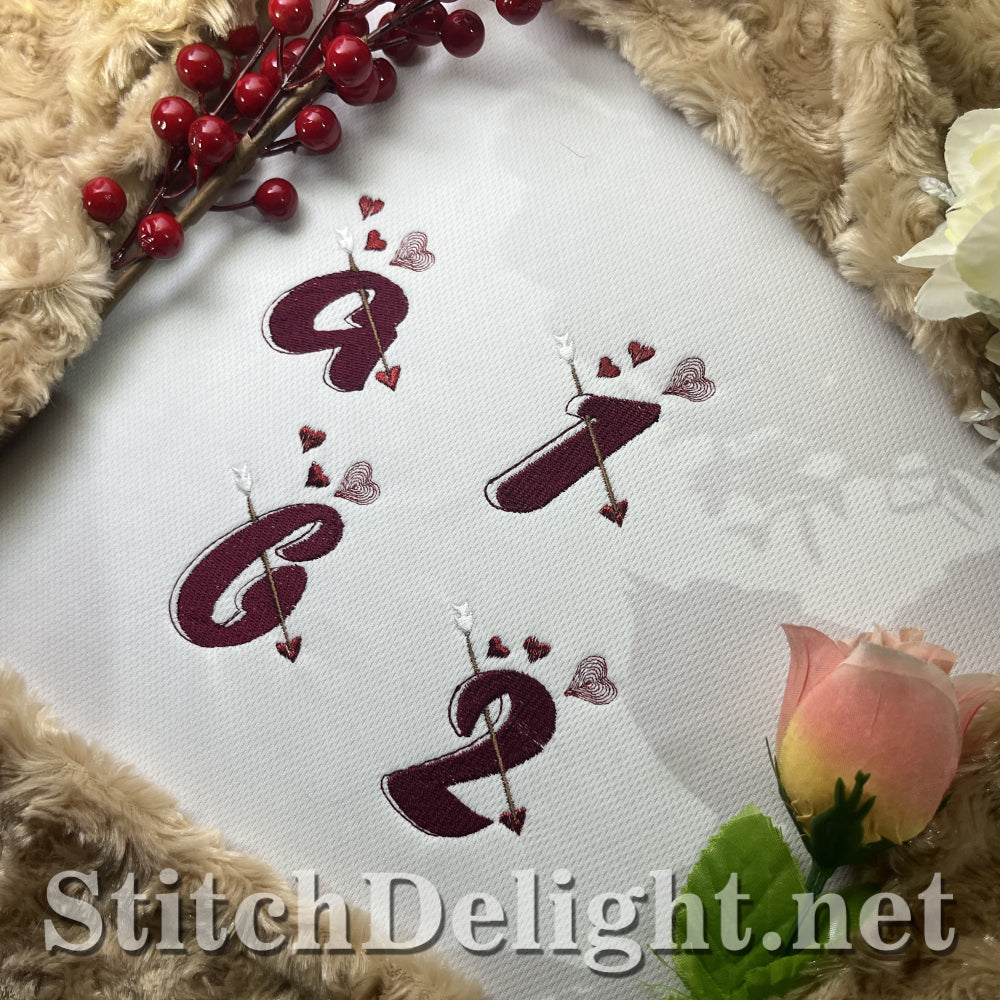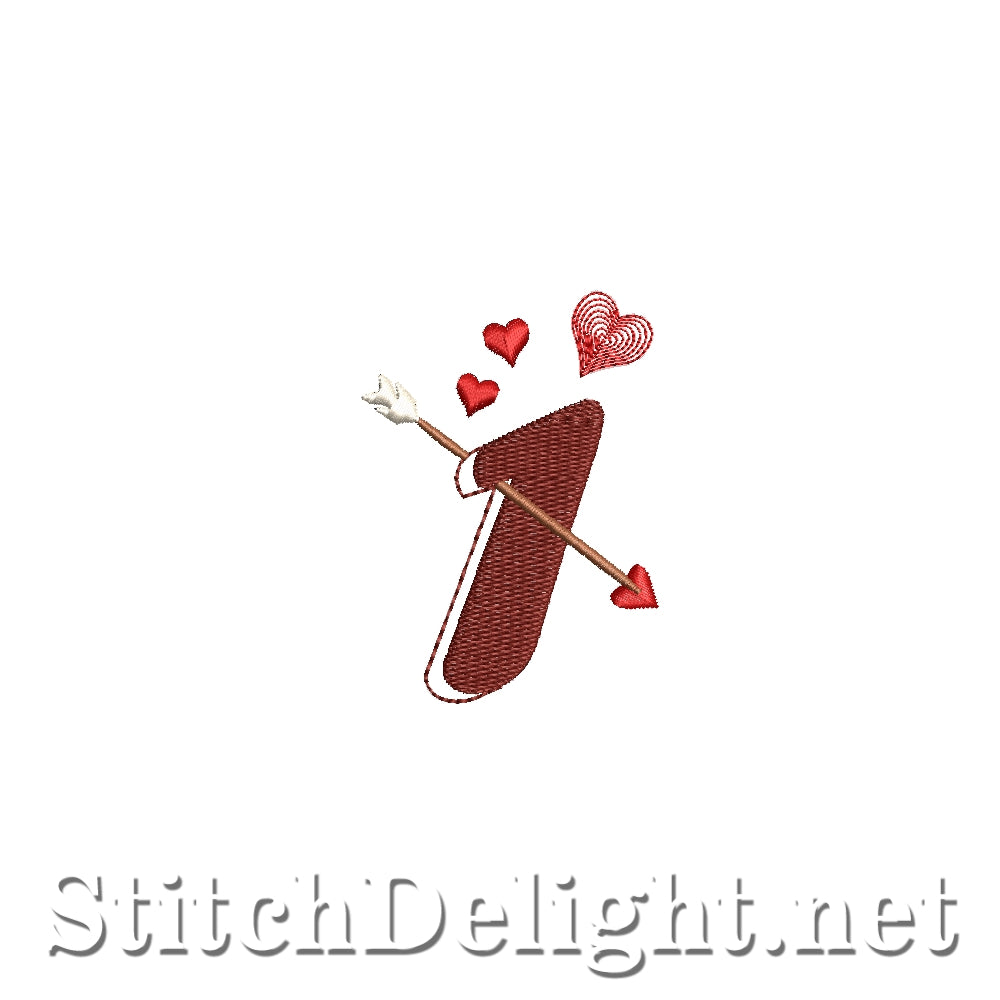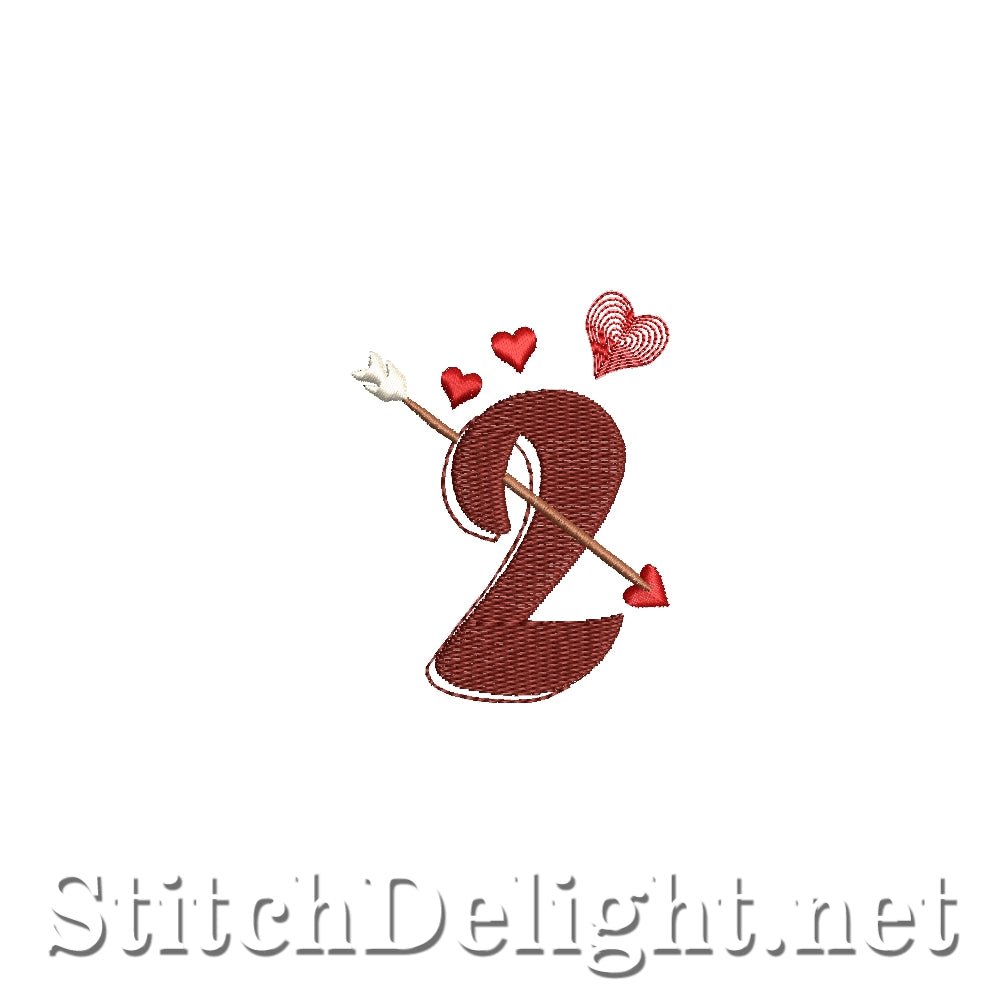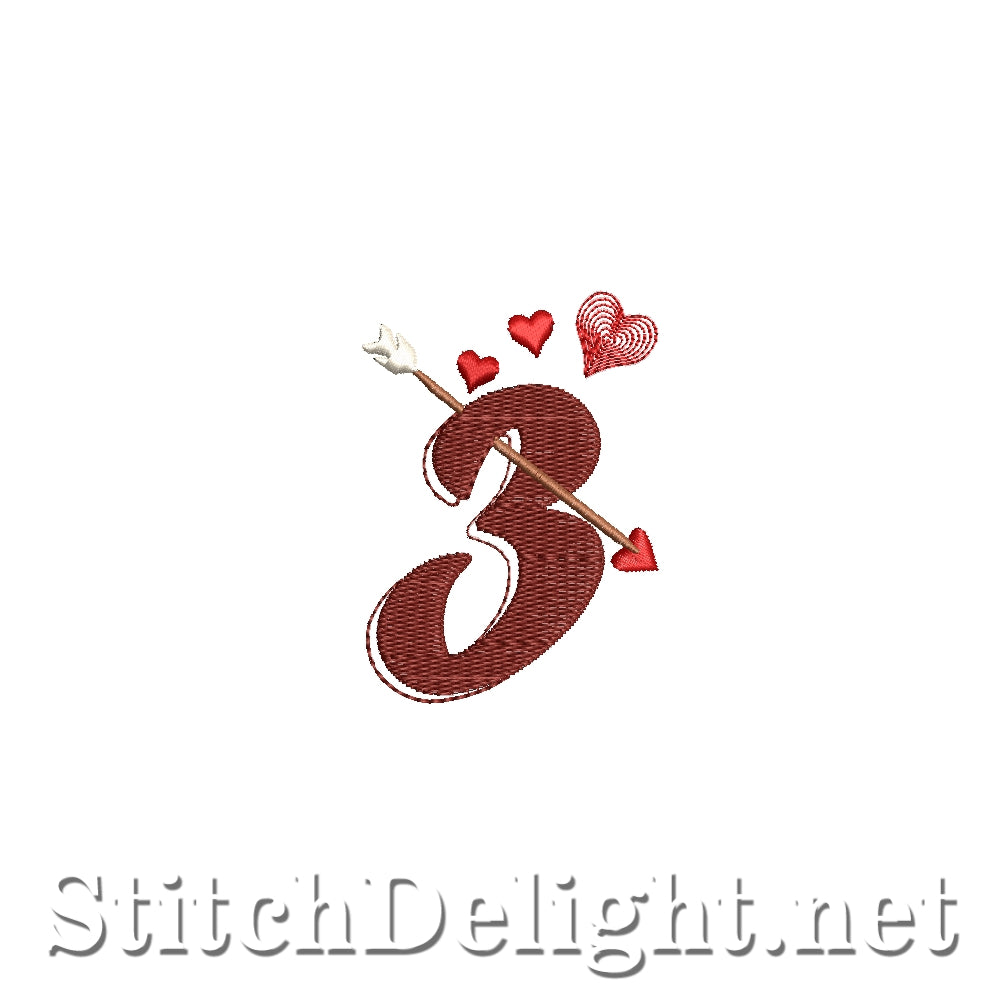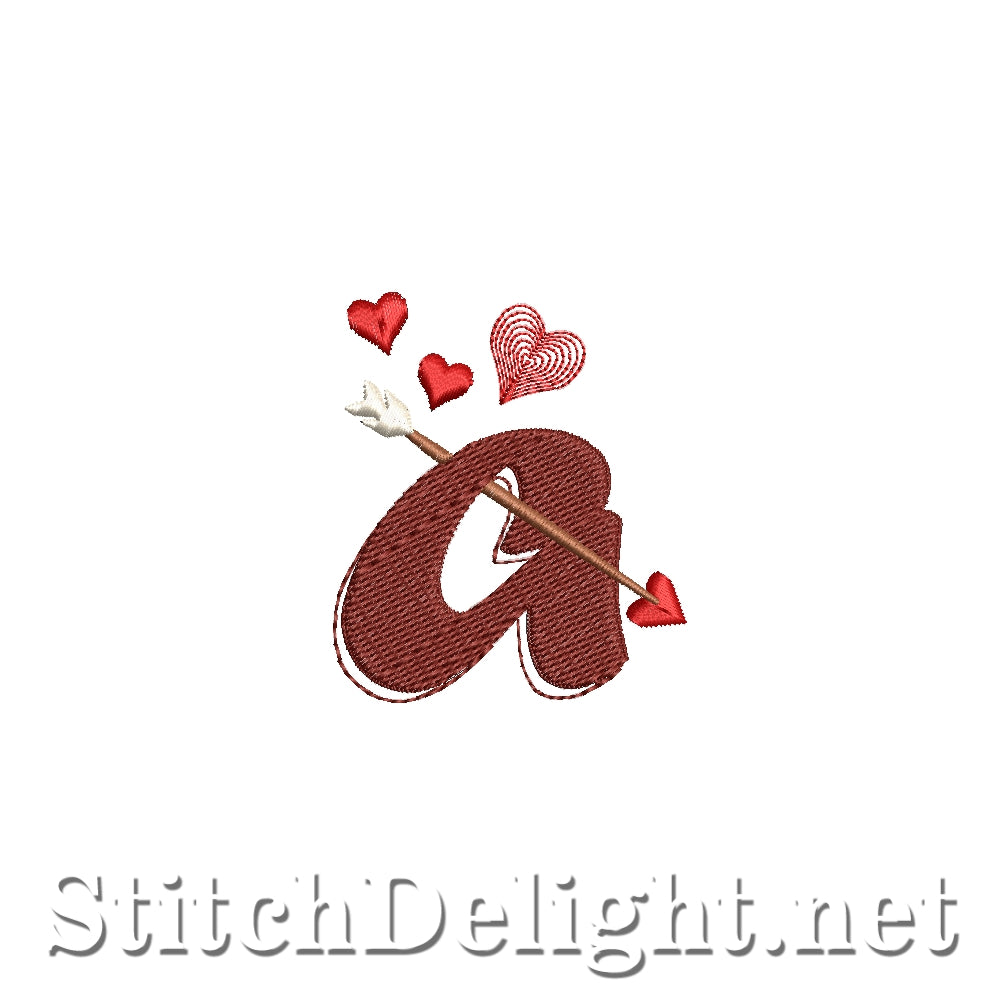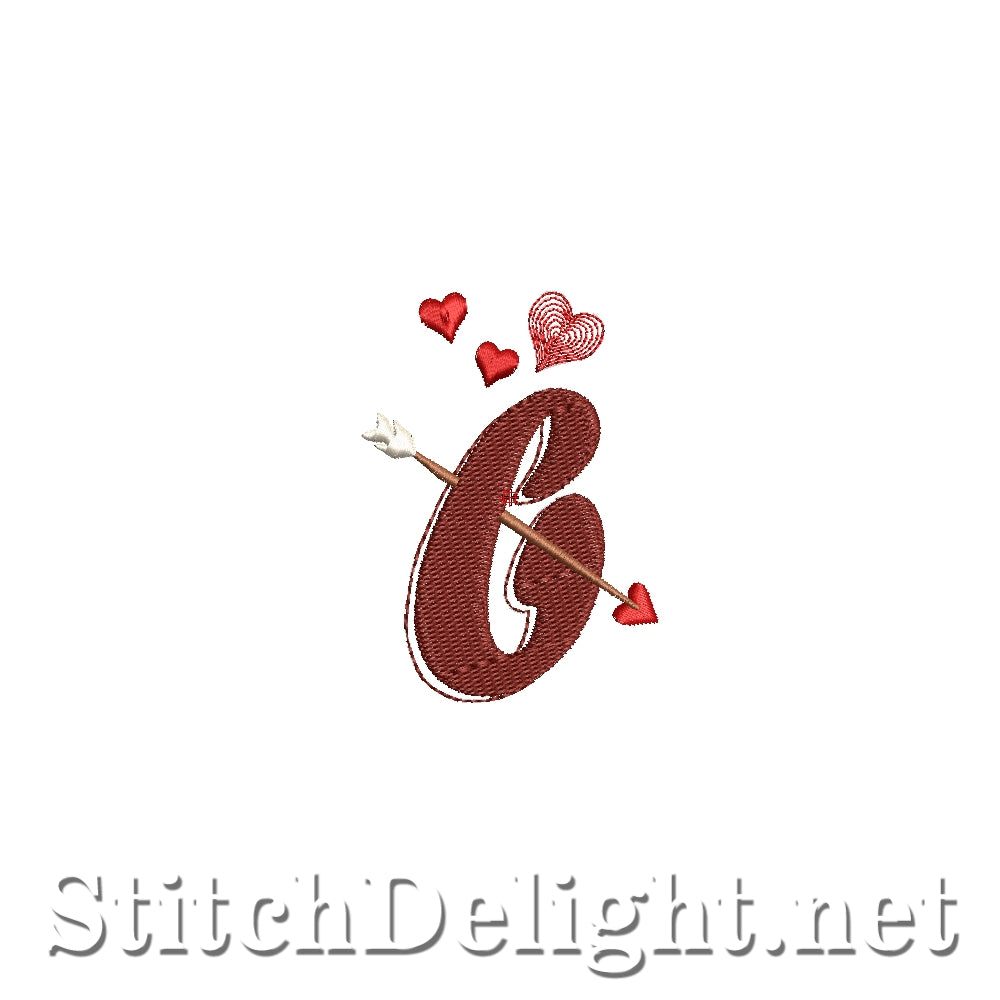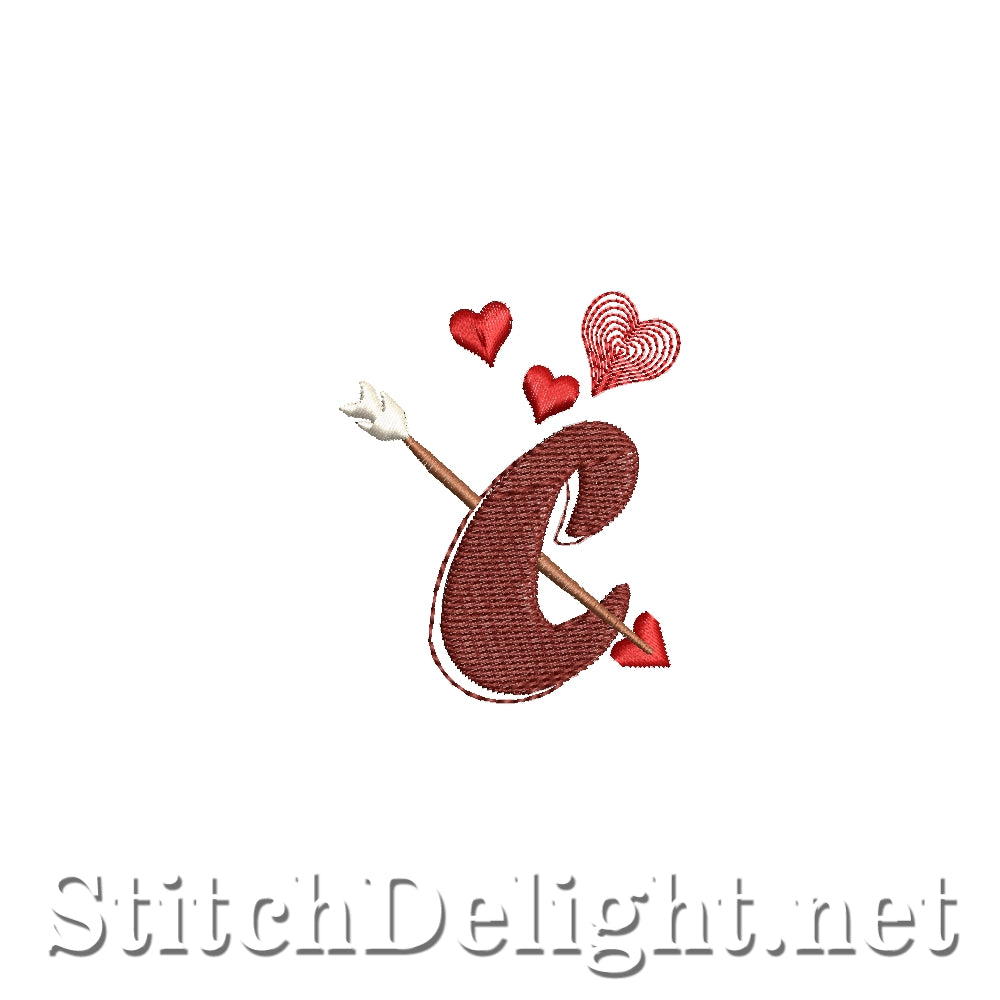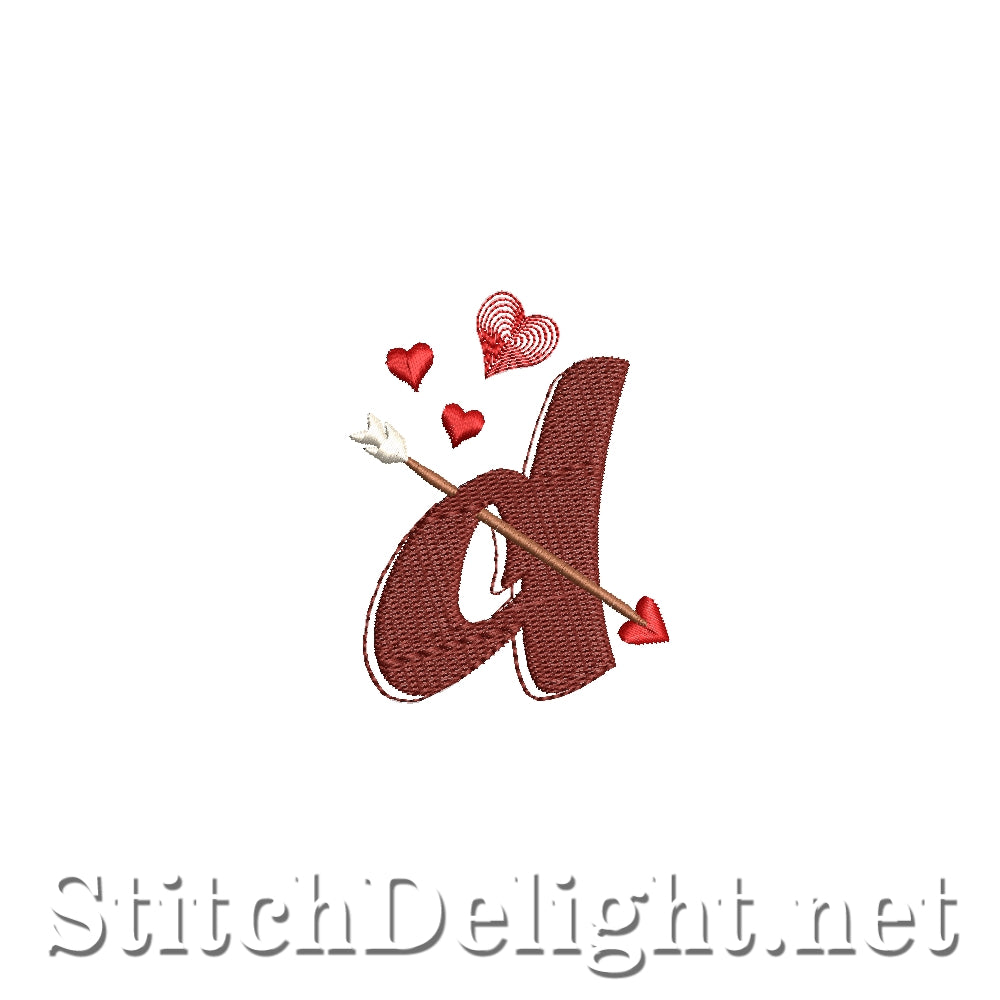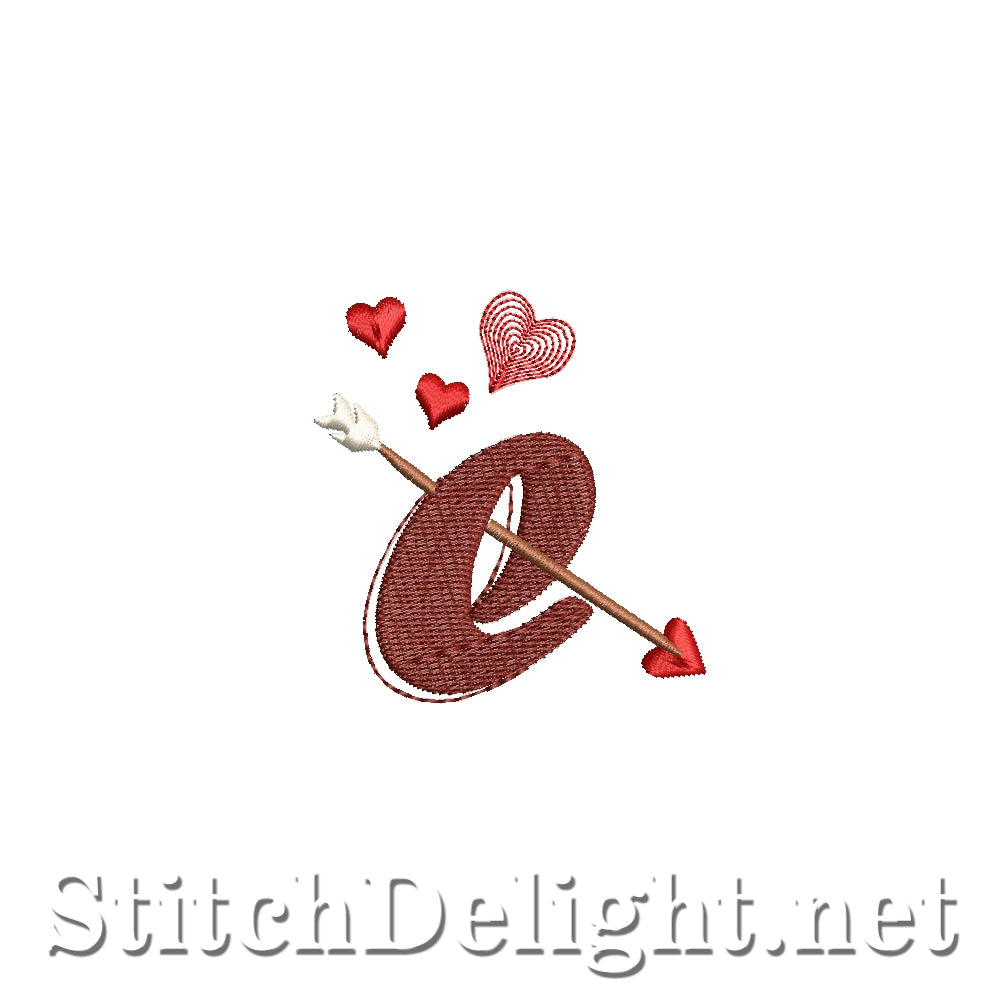
SDS3315 Love Font
This is a beautiful font designed to match the collector's font for December 2024 (SDS3314), but it can also be used as a stand-alone font. this font comes in at around 2x3 "
This font features love-struck letters with Cupid's arrows embedded in them. You can combine these designs with the collector's font to create a cute, interactive effect where it looks like Cupid is shooting arrows into the letters. Perfect for personalized projects such as bibs, pillows, table runners, quilts, gifts for loved ones, and more, this font is ideal for a variety of creative uses